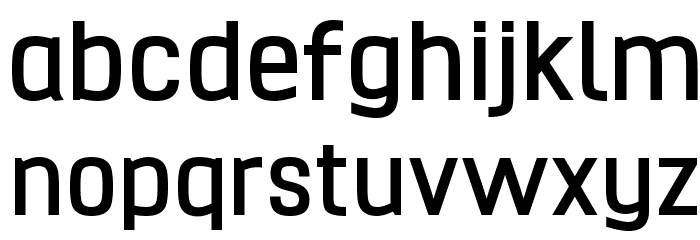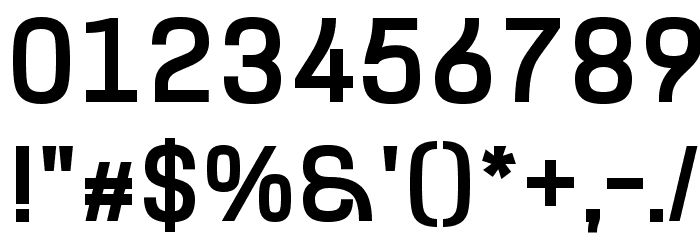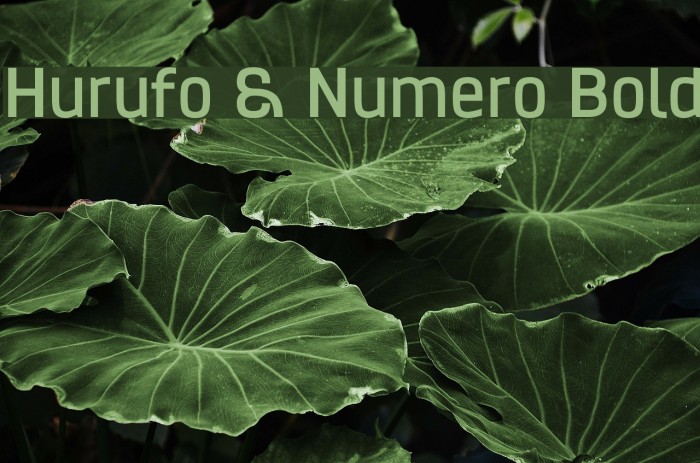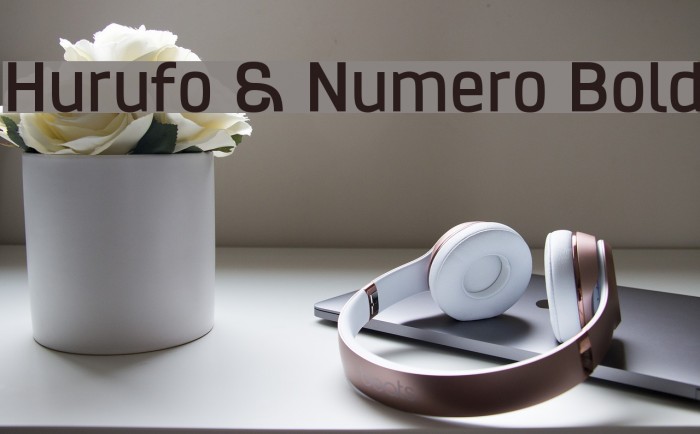
Hurufo & Numero Bold Font
This typeface exhibits a clean and modern sans-serif style with bold, uniform strokes that provide a strong visual impact. The characters are well-proportioned, with a consistent height and width that contribute to its readability. The uppercase and lowercase letters maintain a harmonious balance, while the numerals and special characters are distinct and easily recognizable. The font's design is straightforward yet sophisticated, making it suitable for a variety of applications where clarity and emphasis are desired.
A bold, modern sans-serif font with clean lines and strong visual impact.
- Proposed Projects: Ideal for branding, advertising, headlines, and digital interfaces where clarity and emphasis are crucial.
- Use Case: Headlines, Logos, Digital interfaces